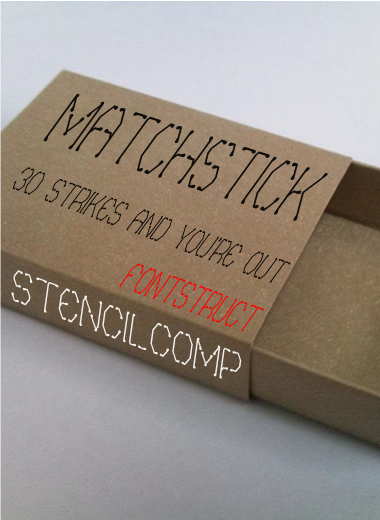
Matchstick
by funk_king
• i also wanted to explore different weights. played around and ended up with the teardrop terminals which reminded me of the head of a matchstick. this one also reminds me of Q-Typ somewhat. note: please do not download and repost elsewhere. thanks.
Wow, to capture the unpredictability of curling up matchsticks in a modular font... 10/10